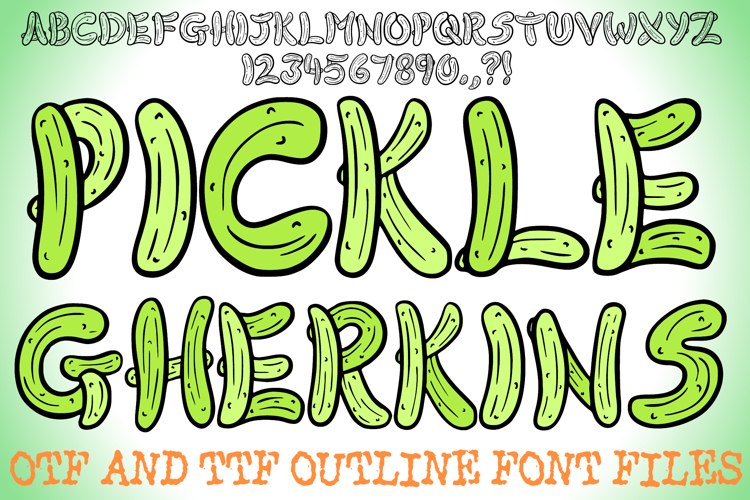
Give your designs a tangy twist with the Pickle Gherkins Food Font! This playful display typeface turns every letter and number into a realistic, hand-drawn gherkin, complete with bumpy textures and a vibrant green gradient. It is the perfect choice for food-related branding, quirky kitchen decor, or any project that needs a bit of sour-but-sweet personality.
Each character is meticulously designed to look like a freshly picked pickle, with organic shapes that mimic the natural curves of a cucumber. Whether you are designing for a summer BBQ invitation, a restaurant menu, or a fun sticker pack, this font is sure to be a "big dill" with your audience!
Realistic Texture: Every letter (A-Z) and number (0-9) features detailed bumps and spots just like a real gherkin.
Vibrant Food Theme: Features a bright green color palette that stands out in digital and print designs.